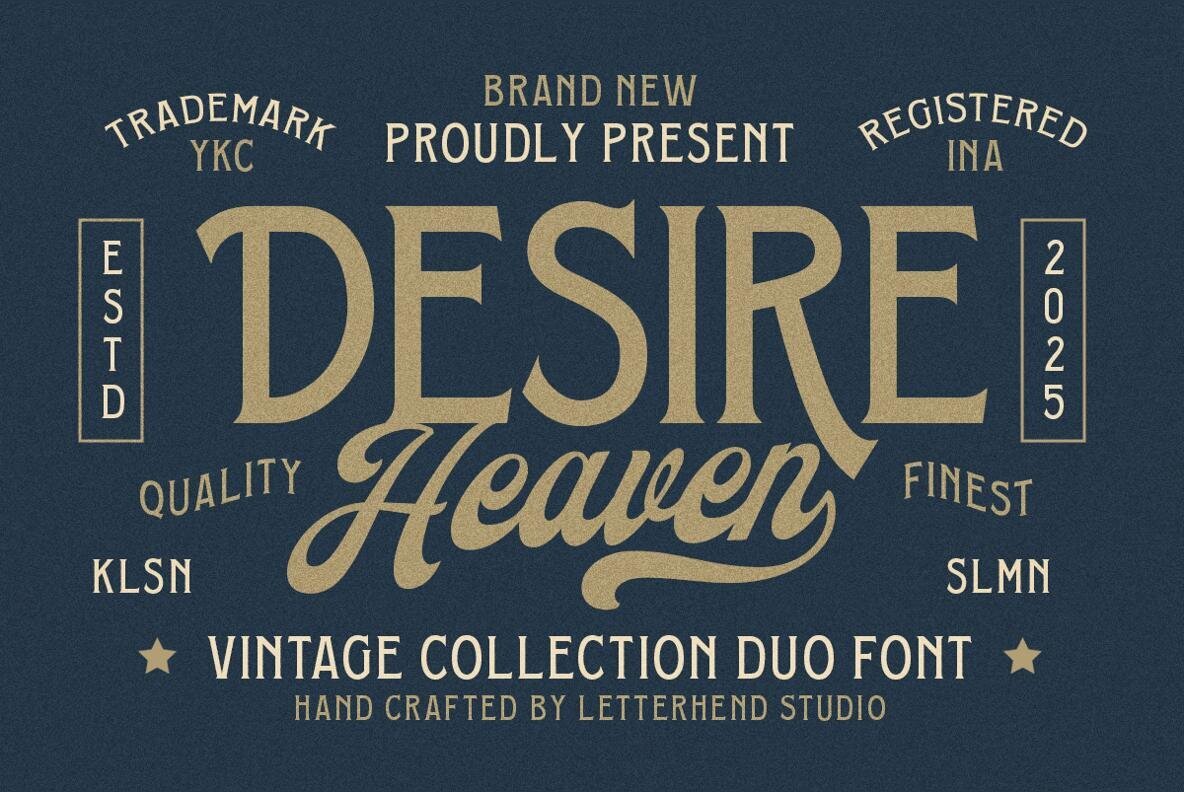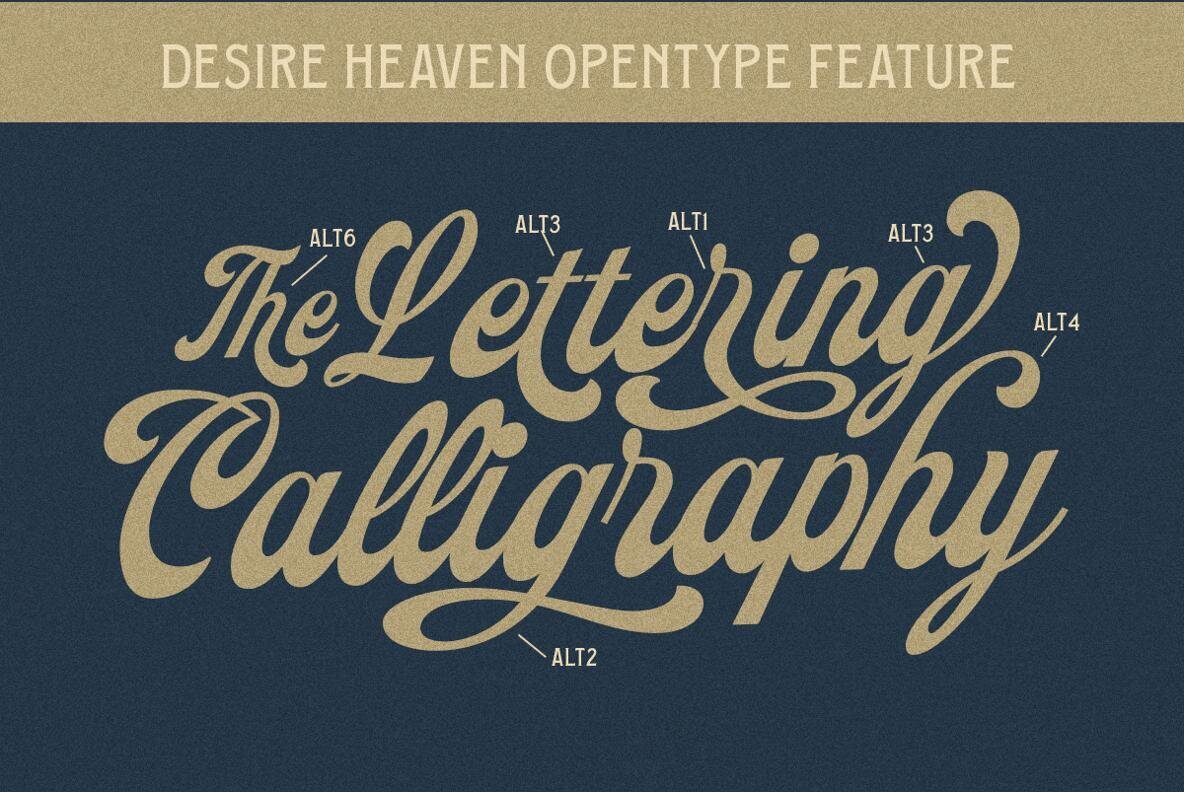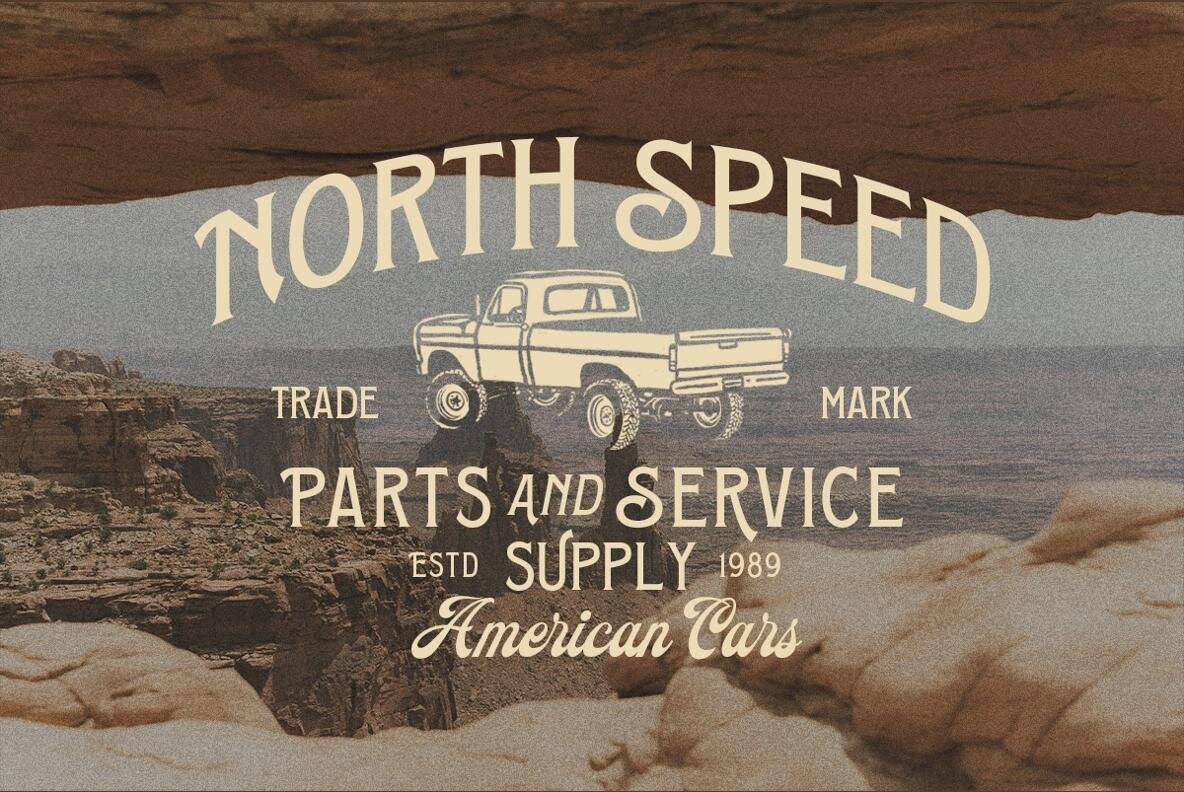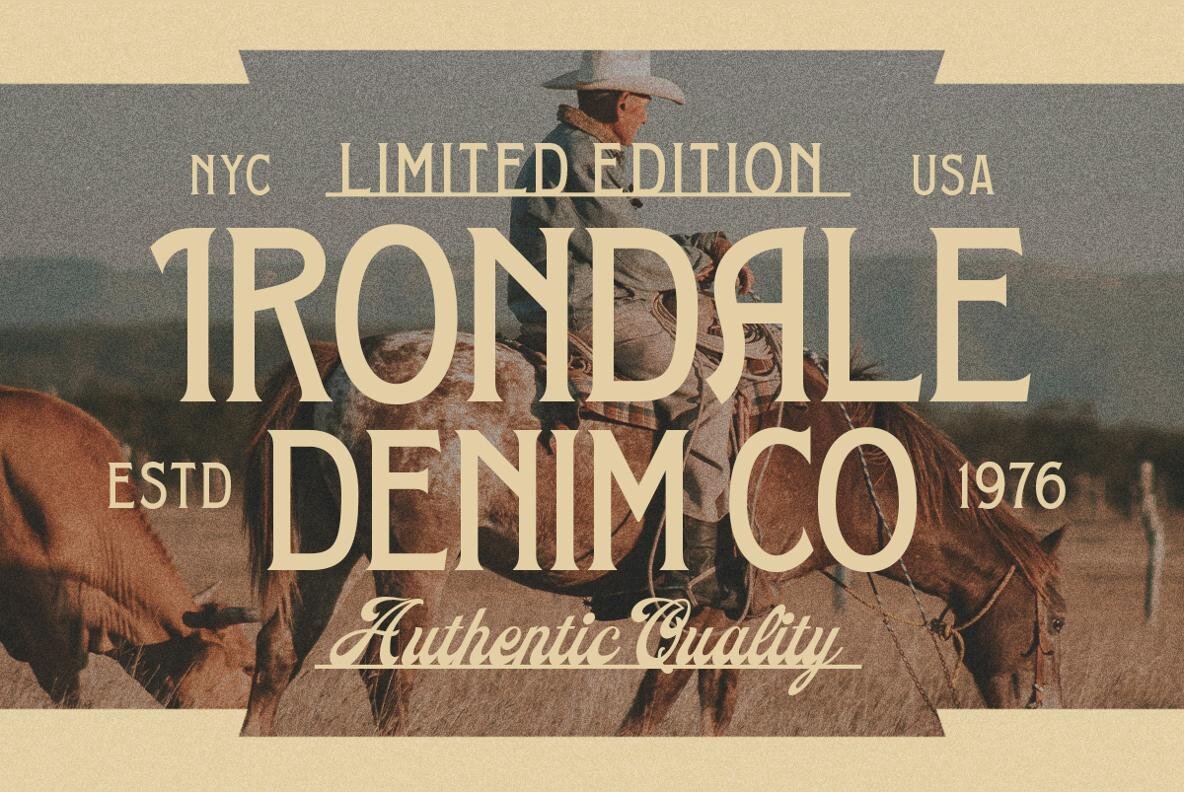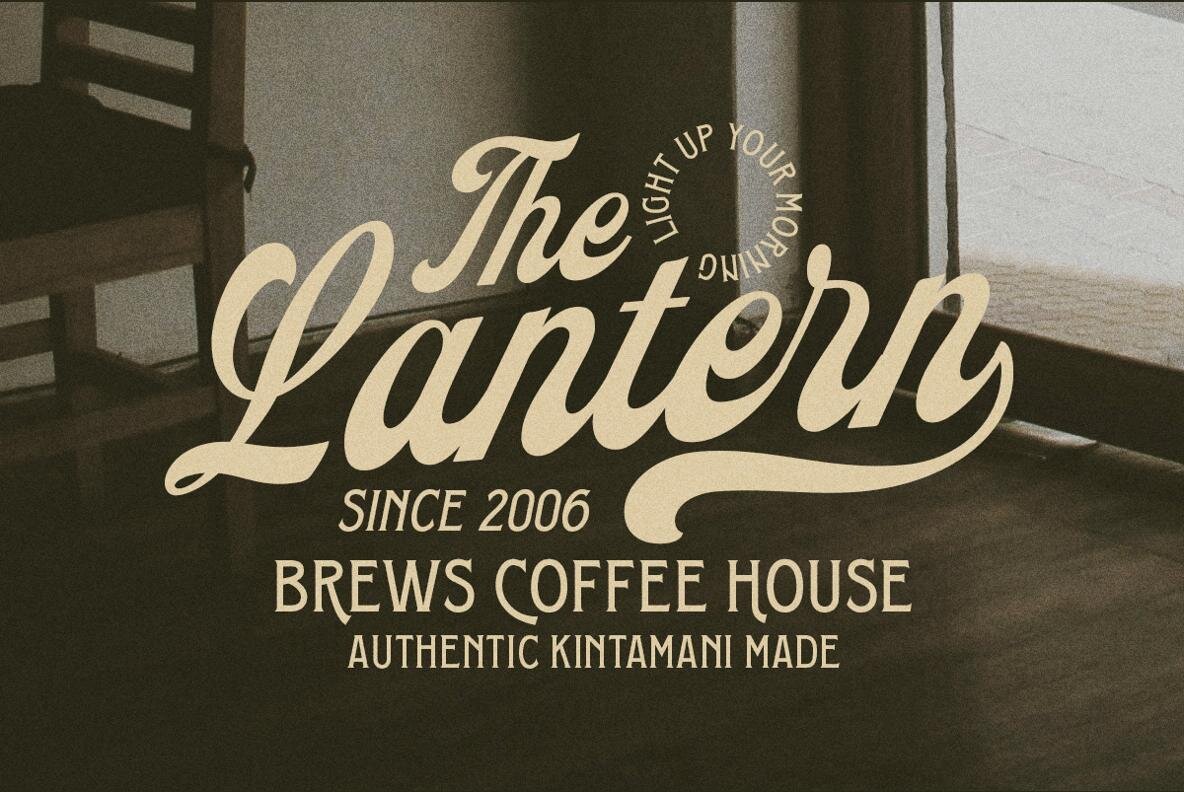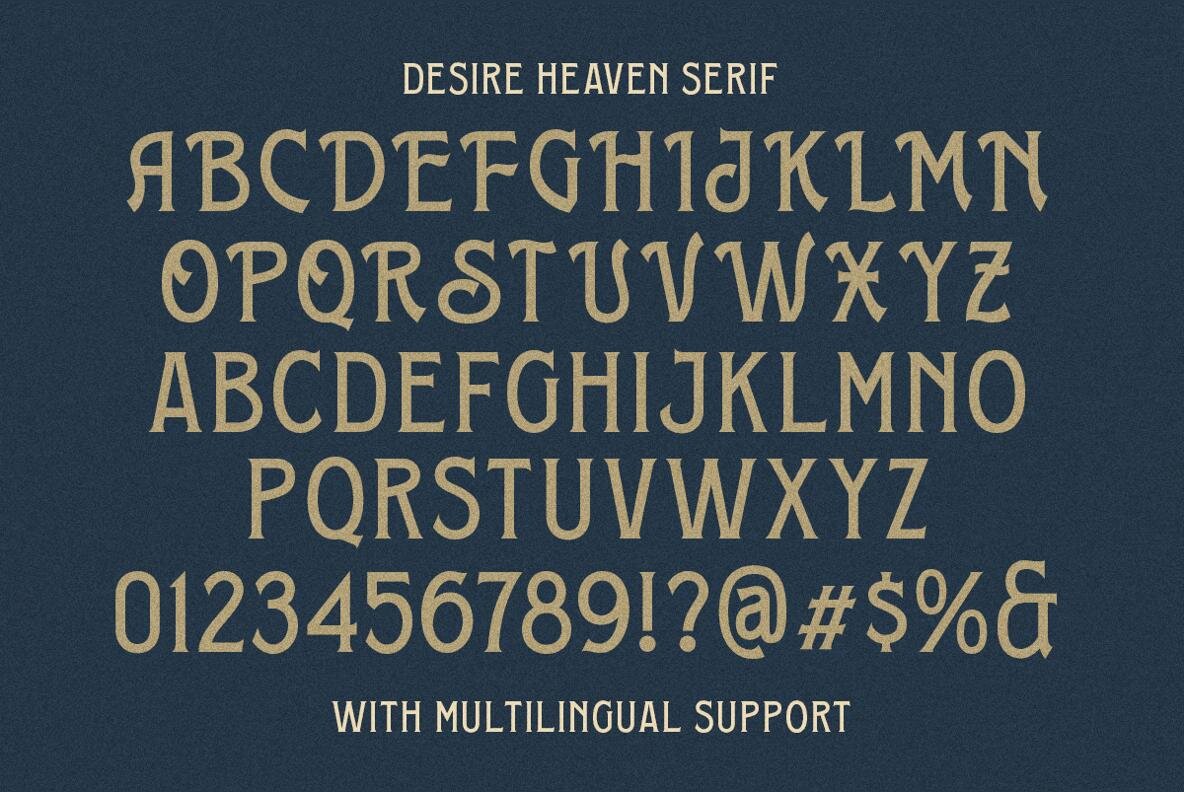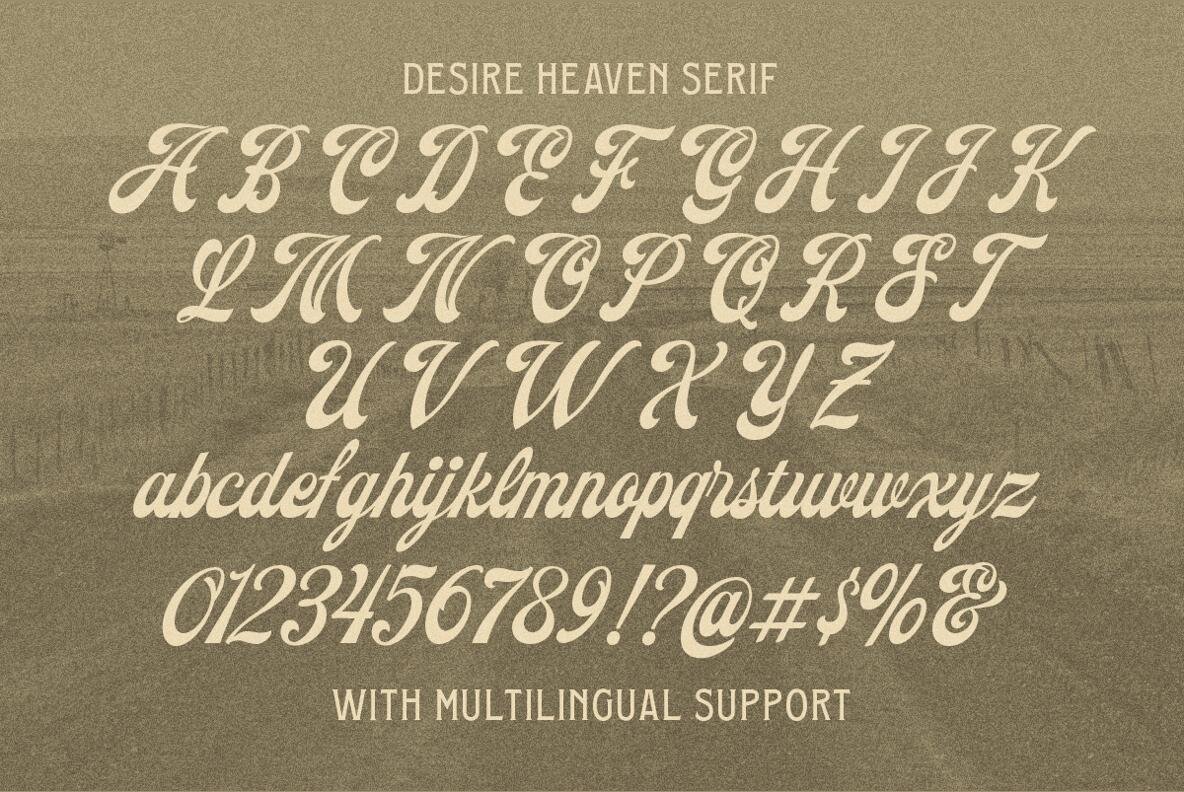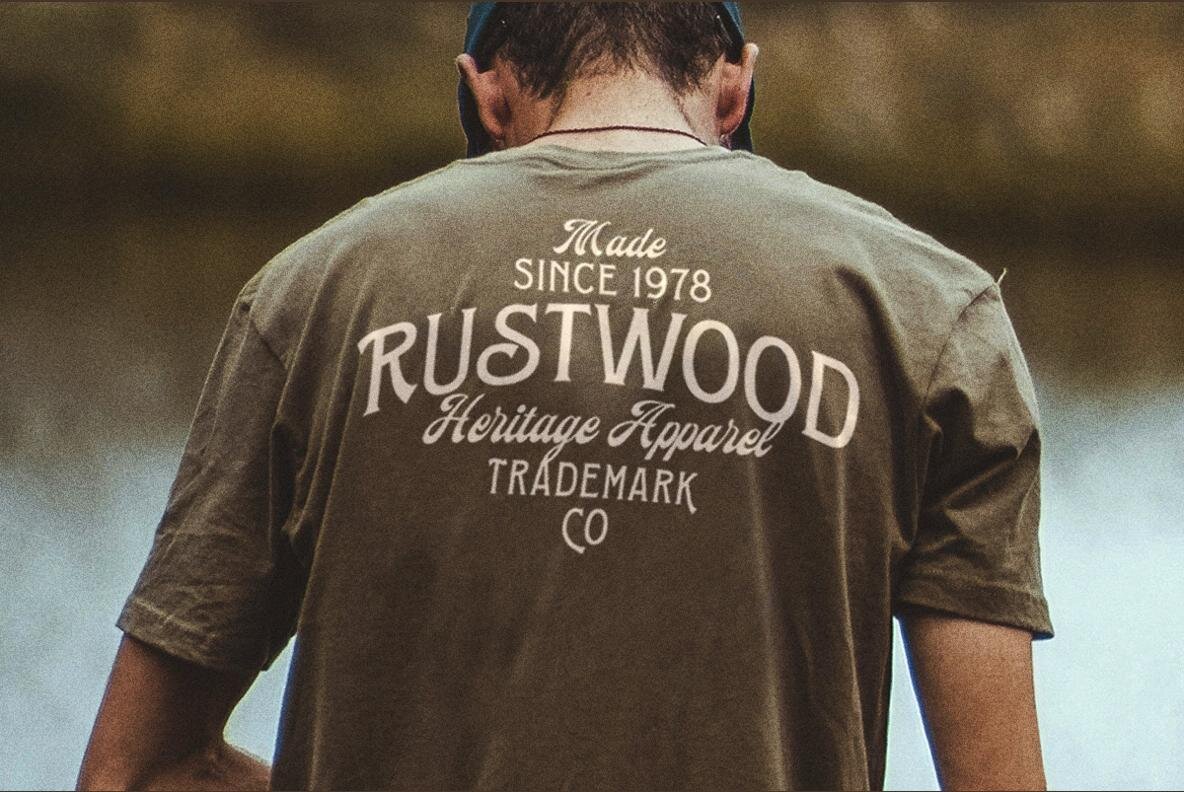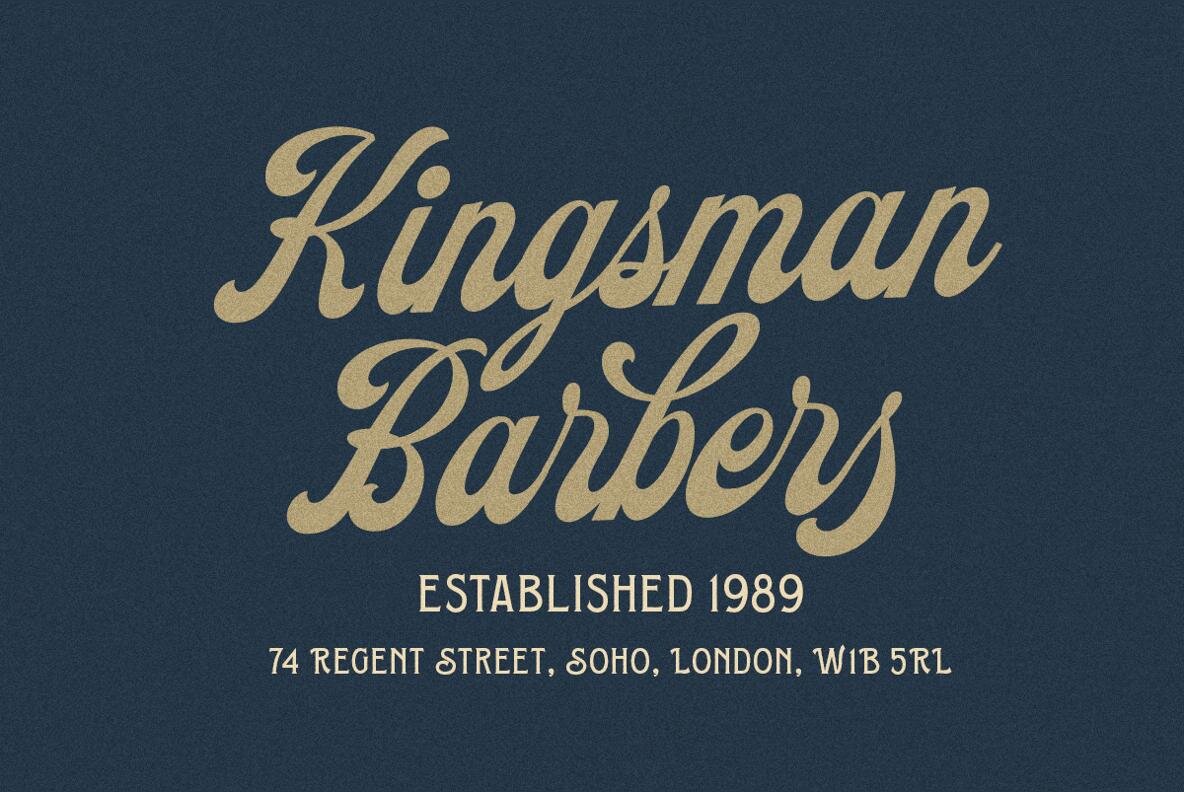
Desire Heaven Font
The Desire Heaven Vintage Collection Font Duo presents an exquisite fusion of bold serif and graceful script. This pairing captivates with its homage to mid-20th century Americana, perfect for elevating headlines and infusing a touch of elegance. Envision the style of vintage American signs or classic spirit labels—that is the captivating charm these fonts summon. Ideal for crafting compelling logos and sophisticated branding that demand attention.Desire Heaven Vintage Collection: Serif & Script Duo